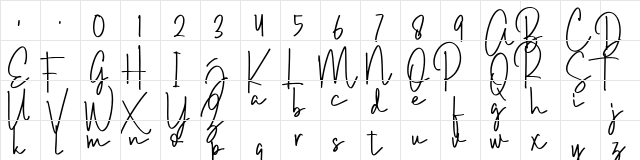
Brush Wayne Regular
| Foundry | Runsell Studio |
| Designer | Saeful Maarif |
Design Context for Brush Wayne Typeface
Brush Wayne flows with the natural rhythm of handwritten lettering, making it ideal for designs that call for warmth and personal expression.